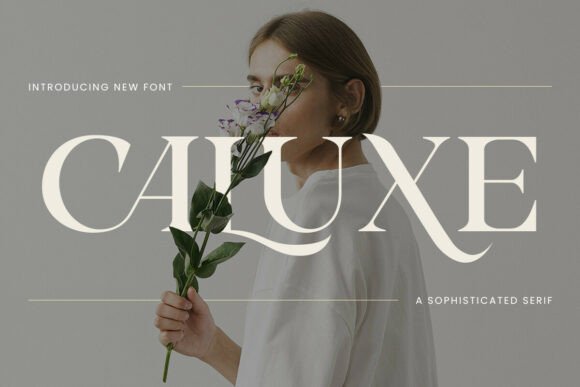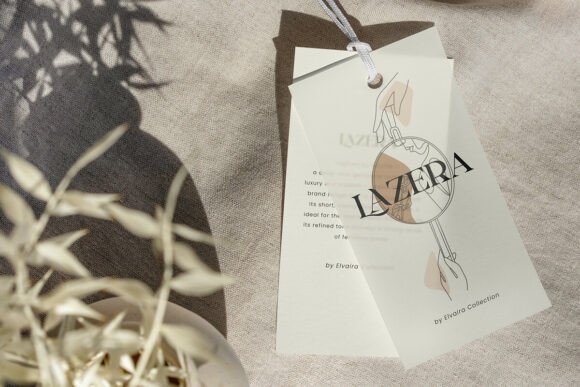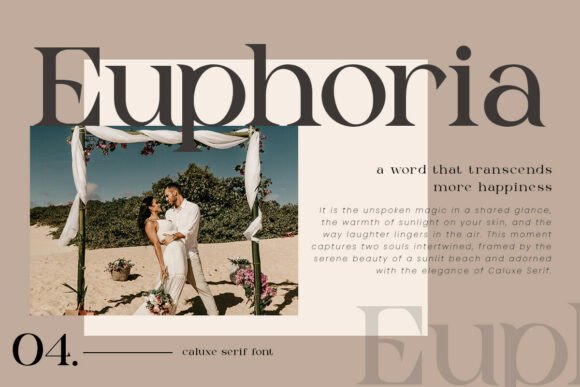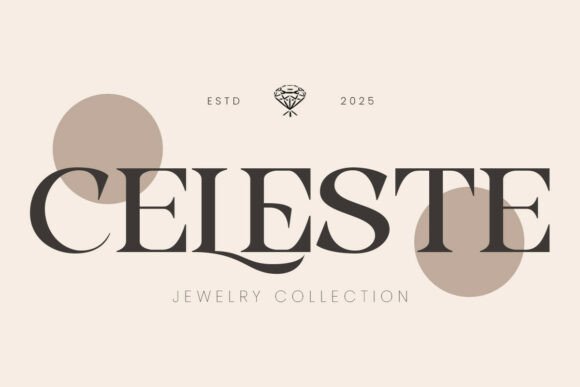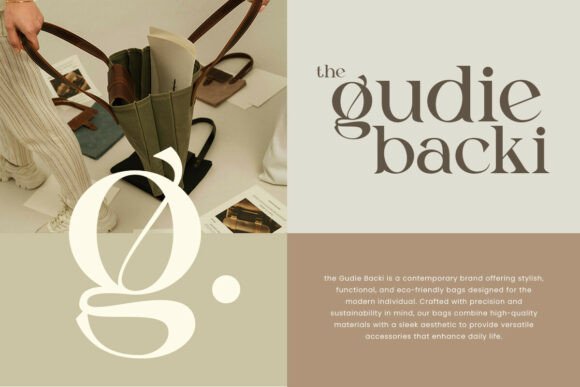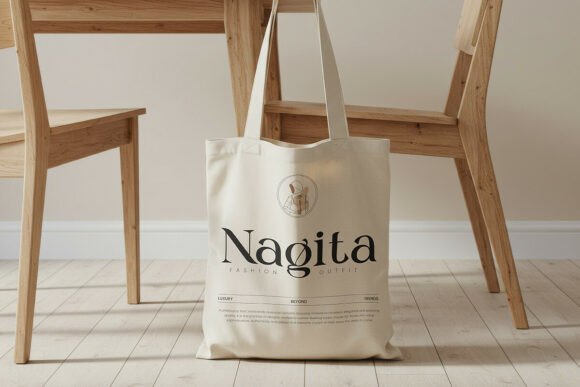
The Ultimate Font for Luxury Design: A Deep Dive into Caluxe
I’ll never forget the time I was working on a high-end branding project for a luxury fashion client. I had spent hours perfecting the logo design, but something was off. The font I was using just didn’t feel sophisticated enough. I scoured the internet for the perfect serif font, and then I stumbled upon Caluxe. It was love at first sight! ✨ The refined letterforms, the elegant curves, and the sharp contrasts all came together to create a truly luxurious feel. In this article, I’ll share my experience with Caluxe, its features, and how to make the most of this stunning font.
An Honest Review of Caluxe
What I Love About Caluxe
• ✨ Sophisticated and elegant design: Caluxe exudes luxury and refinement, making it perfect for high-end branding and design projects.
• ✅ Versatile and adaptable: This font seamlessly adapts to various design applications, from large displays to fine text.
• ✅ Excellent readability: Caluxe’s smooth kerning and balanced strokes ensure that your text is easy to read, even at small sizes.
• ✅ OpenType features and glyphs: Caluxe offers a range of stylistic alternates, ligatures, and glyphs to give you creative control.
While Caluxe is an exceptional font, there are a few things to keep in mind: 🤔
Alternatives to Caluxe: 4 Fonts with a Similar Personality
If you like Caluxe, you might also enjoy these luxury serif fonts:
• Playfair Display: A elegant and refined font with a similar feel to Caluxe, perfect for high-end branding and editorial design.
• Lorakea: A sophisticated serif font with a strong, modern look, ideal for luxury fashion and beauty brands.
• Adorn: A luxurious script font with a vintage feel, great for adding a touch of elegance to wedding stationery and product packaging.
• Didot: A classic serif font with a sophisticated, high-end feel, perfect for fashion magazines and luxury brand advertising.
The Story Behind Caluxe: Designer Inspiration
Caluxe was designed with the goal of creating a modern luxury serif font that would evoke the feeling of high-end sophistication. The designer drew inspiration from classic serif fonts, but with a bold and elegant twist. The result is a font that’s both timeless and modern, perfect for designers seeking to add a touch of luxury to their work.
What is Caluxe font best used for? Caluxe is ideal for luxury branding, editorial layouts, fashion magazines, product packaging, and high-end digital design.
Is Caluxe suitable for body text? While Caluxe is elegant and refined, it’s best suited for headlines and titles. For body text, you may want to choose a font with better readability.